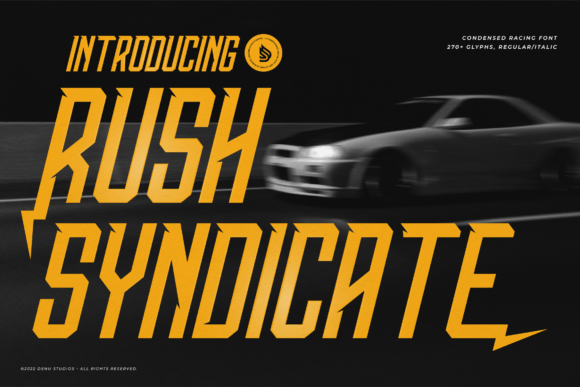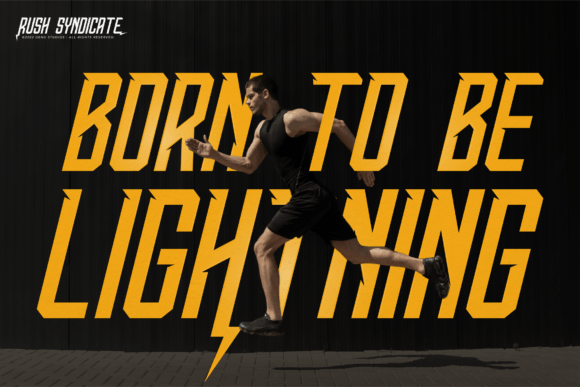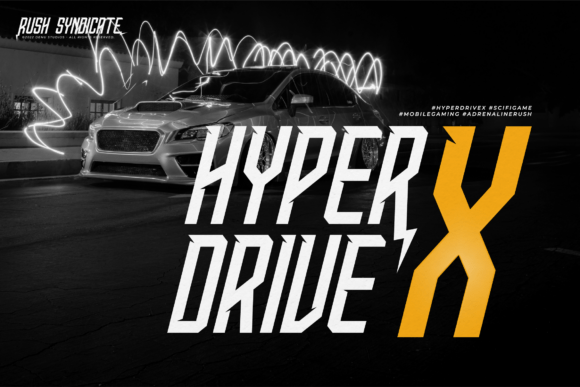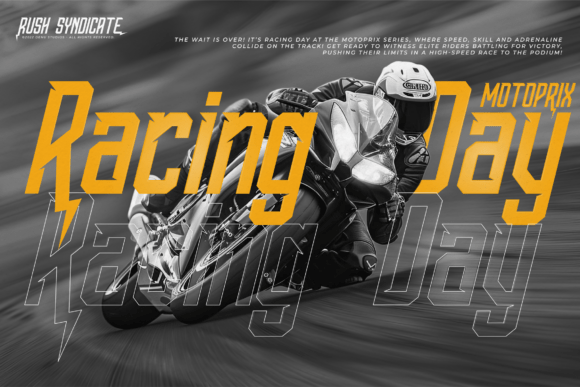
Rush Syndicate Font
About the Rush Syndicate Font
From logos to headlines, the Rush Syndicate Font is the perfect choice for making a lasting impression. Rush Syndicate is a high-speed, adrenaline-fueled display font with sharp, angular edges and a dynamic, condensed design. Inspired by motorsports, futuristic aesthetics, and action-packed energy, this font is perfect for racing posters, gaming titles, automotive branding, sportswear, and high-performance logos. Accelerate your designs with Rush Syndicate!
Its strong, condensed forms make it ideal for headlines, short impactful statements, and logos where bold readability is key. Avoid using Rush Syndicate for large amounts of body text or in user interfaces; its aggressive angles can hinder legibility in smaller sizes or continuous reading.
The font’s energetic personality pairs well with clean sans-serifs like Futura or Open Sans for a balanced contrast, or a more playful, rounded sans-serif like Bebas Neue. For a sophisticated edge, consider pairing it with a subtle serif like Garamond or a geometric sans-serif like Montserrat.
Rush Syndicate projects a bold, rebellious, and modern personality, making it perfect for brands focused on speed, technology, and action-oriented industries like sports, gaming, and automotive.
Rush Syndicate Font Example